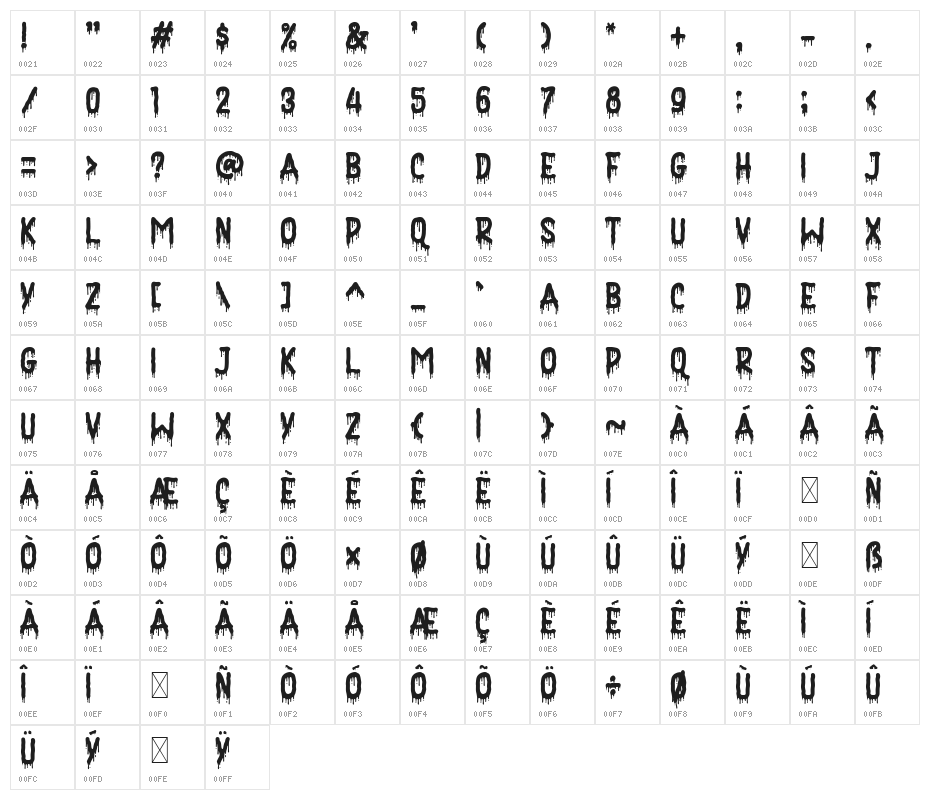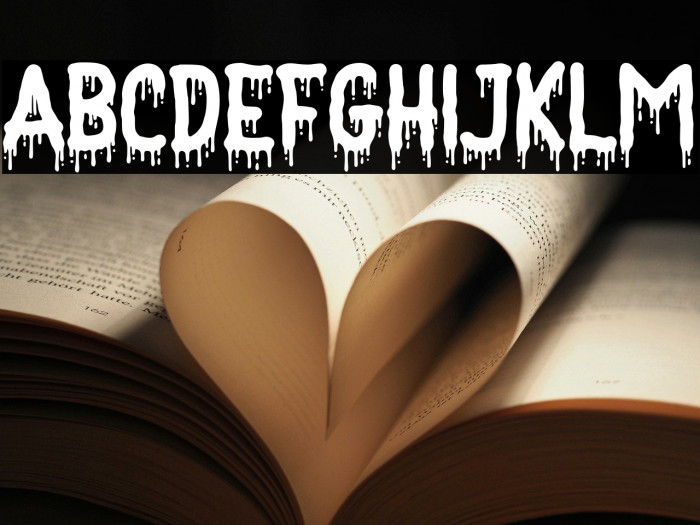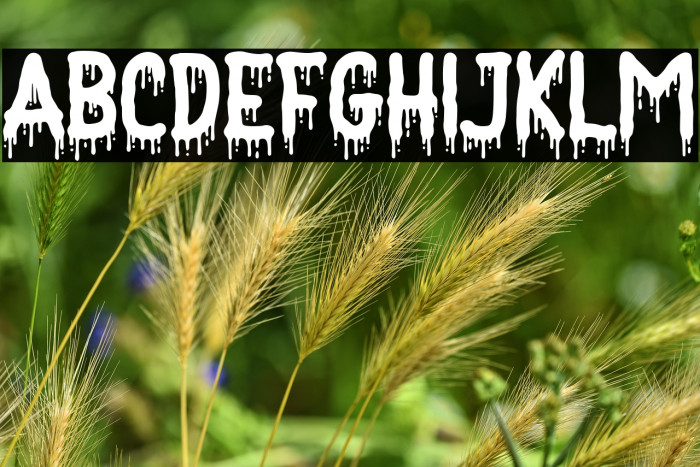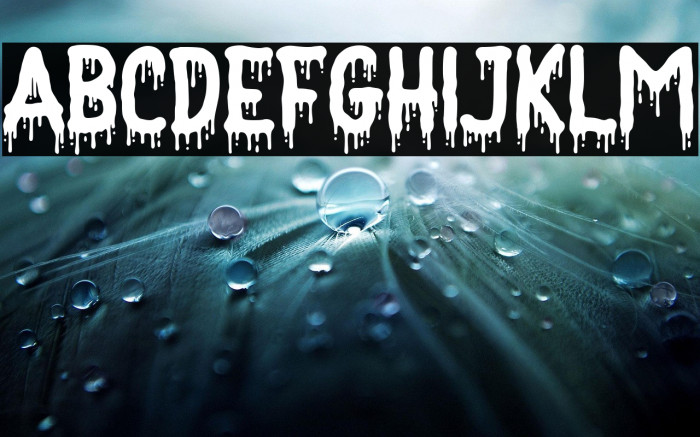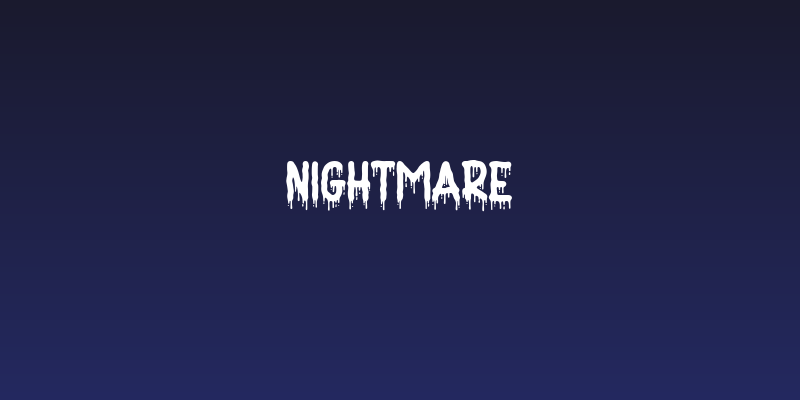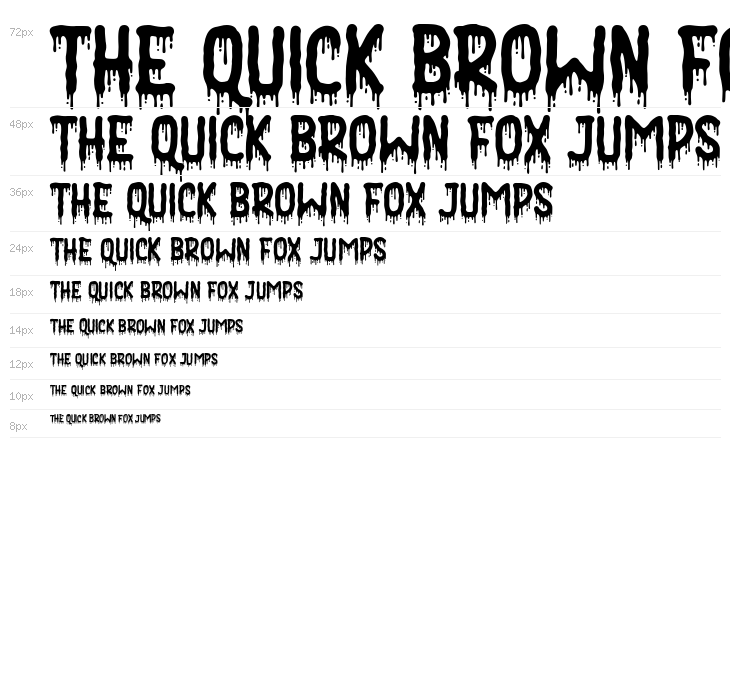
Nightmare Font
Nightmare Description
This font features a unique and eerie design, with each character appearing as if it is melting or dripping, reminiscent of a horror or Halloween theme. The uppercase and lowercase letters maintain a consistent style, with bold, thick strokes that give a sense of weight and presence. The numbers and special characters follow the same dripping motif, ensuring a cohesive look across all elements. The font's distinctive style makes it ideal for projects that require a spooky or dramatic effect, such as Halloween invitations, horror movie posters, or themed event flyers.
| Proposed Projects | Ideal for Halloween invitations, horror movie posters, themed event flyers, and other spooky or dramatic design projects. |